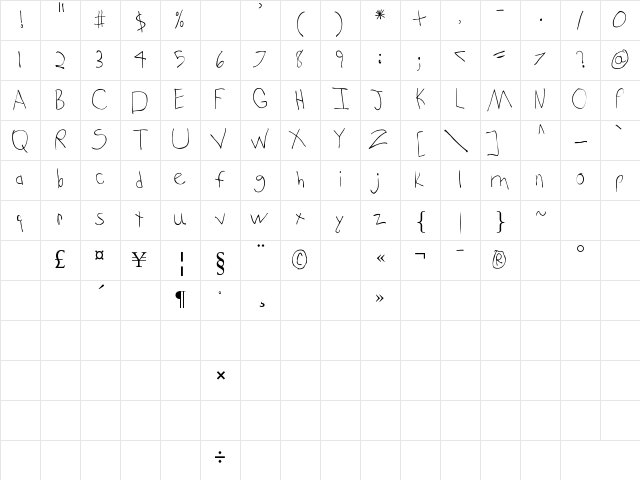
Gabby Regular Free Font
Gabby Regular
Design Context for Gabby
Gabby is a composed and adaptable typeface that performs quietly and consistently across a wide range of design contexts.